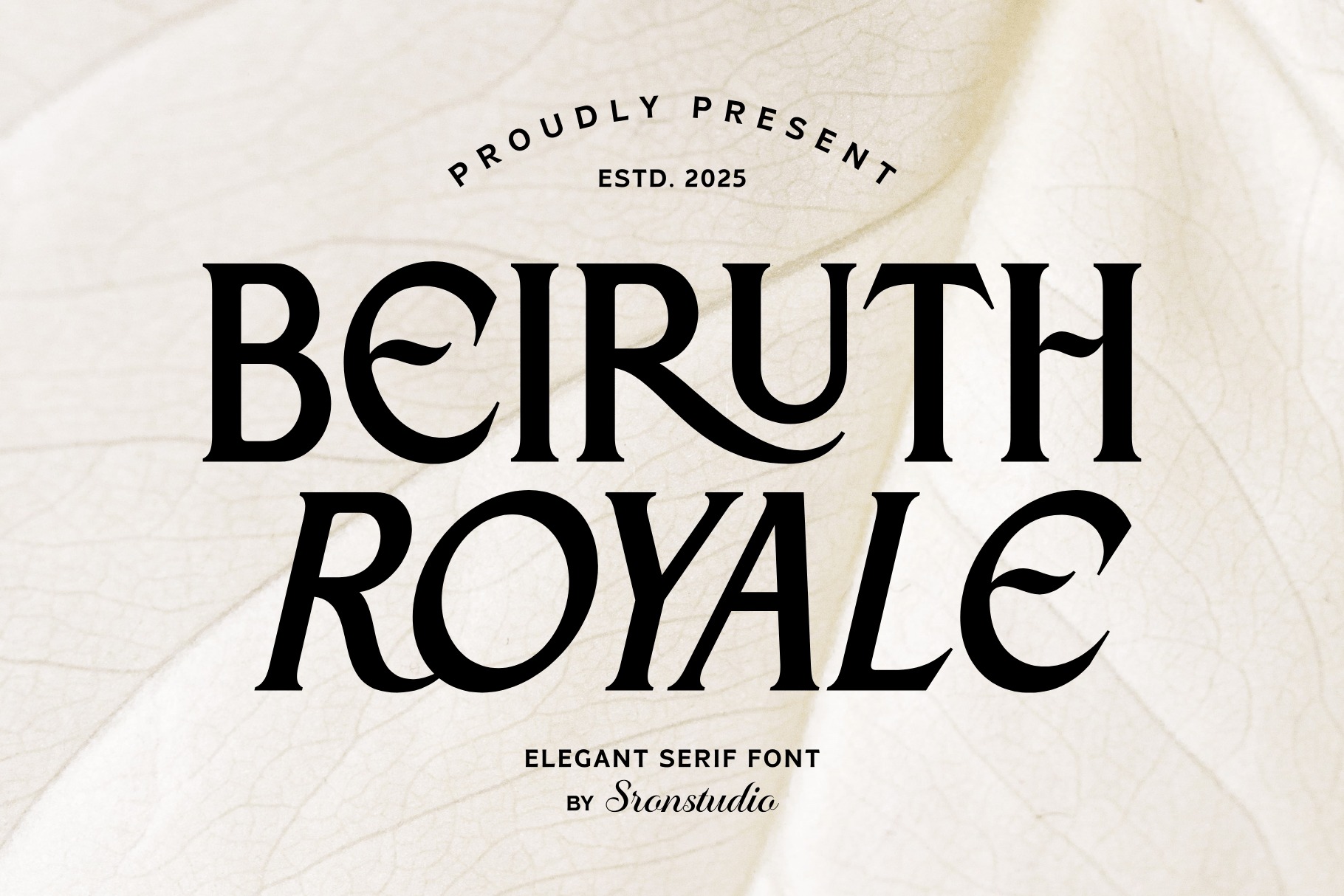
Beiruth Font
Beiruth Font is a stylish typeface that enhances visual appeal and works effortlessly in many design contexts. Beiruth is a classic serif font that blends timeless elegance with modern refinement. Featuring balanced proportions, clean serifs, and graceful letterforms, this font is perfect for editorial design, branding, book covers, logos, and sophisticated layouts. Beiruth delivers a professional and polished look, making it ideal for projects that require clarity, style, and enduring appeal.